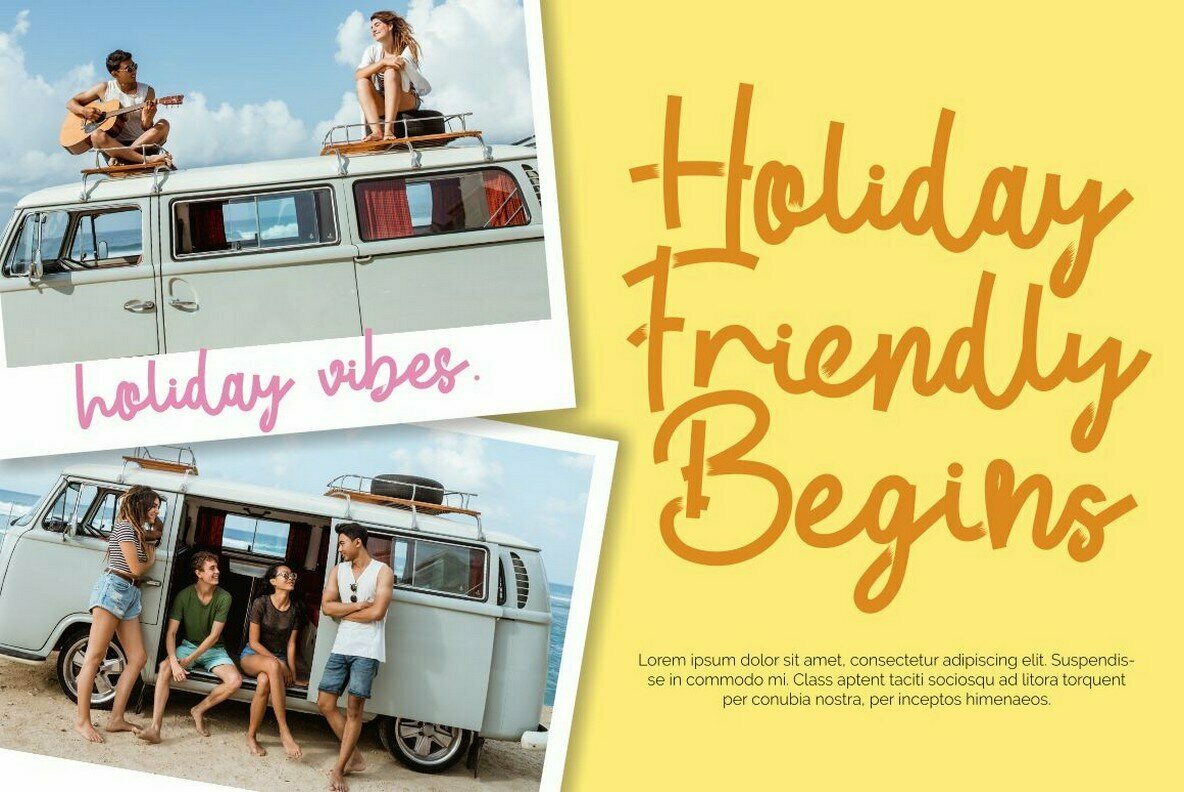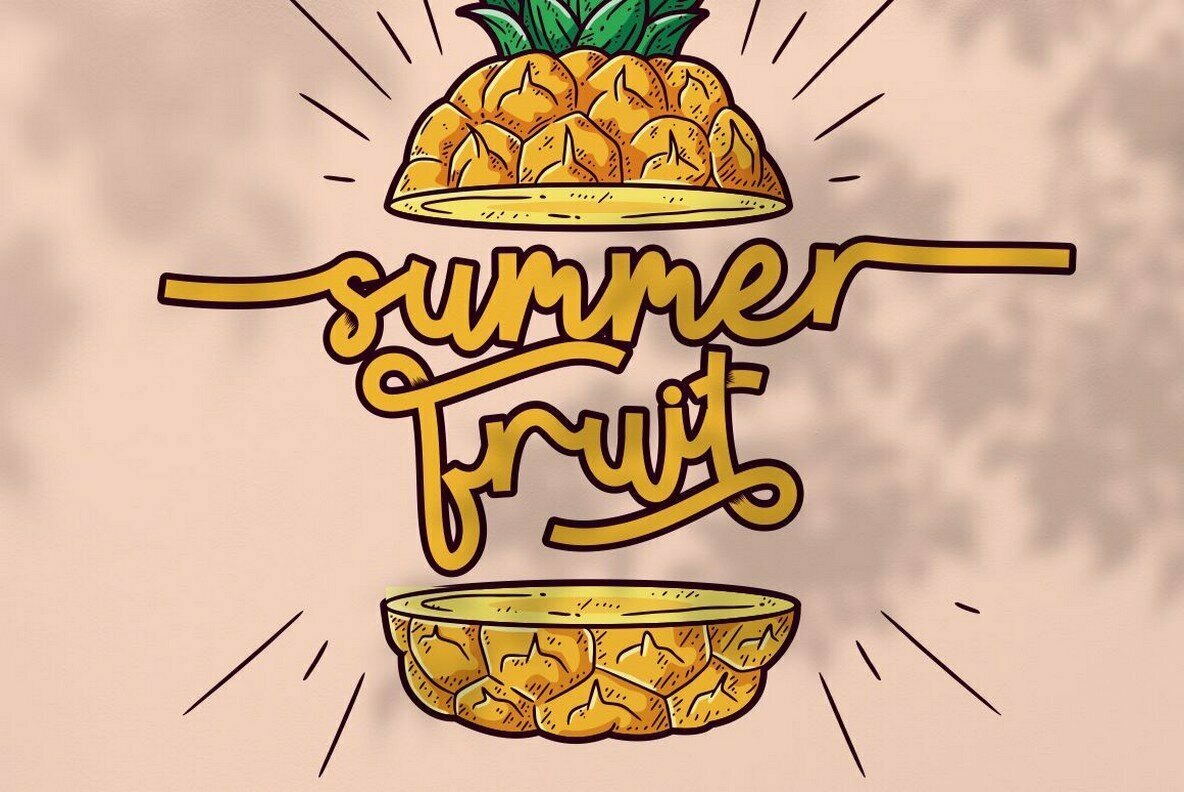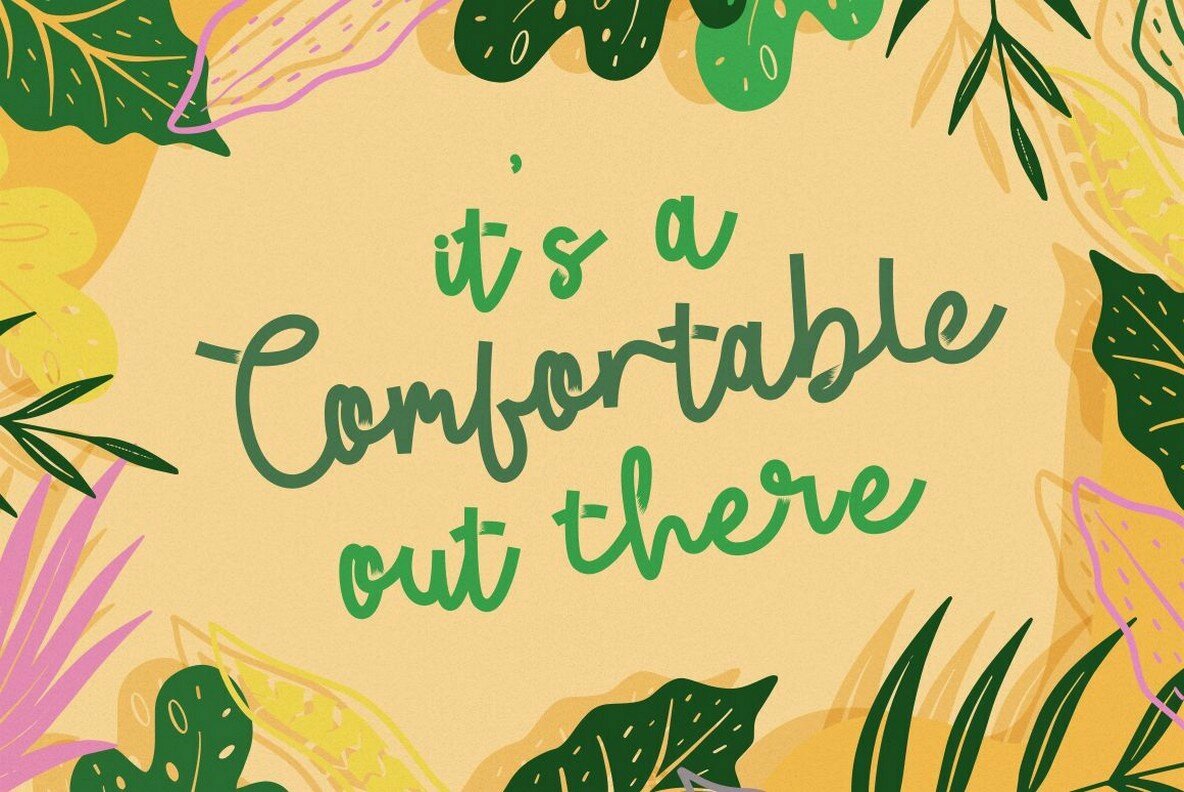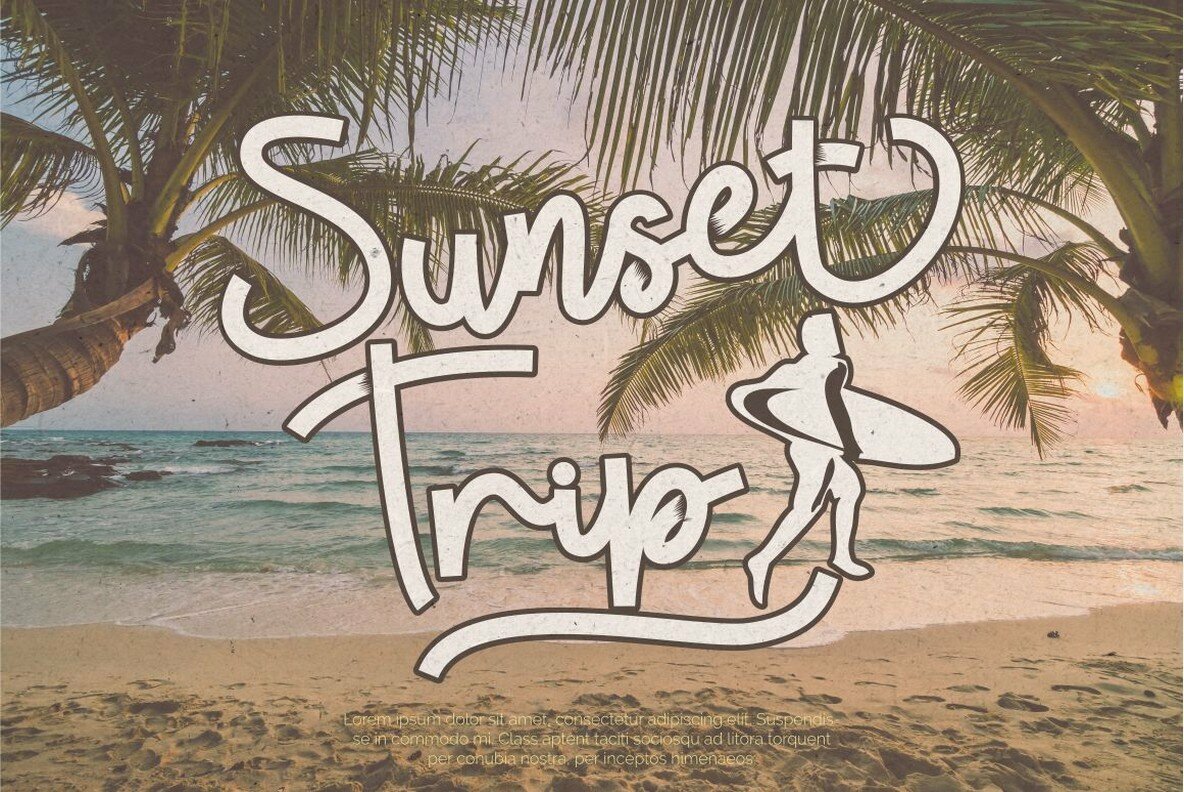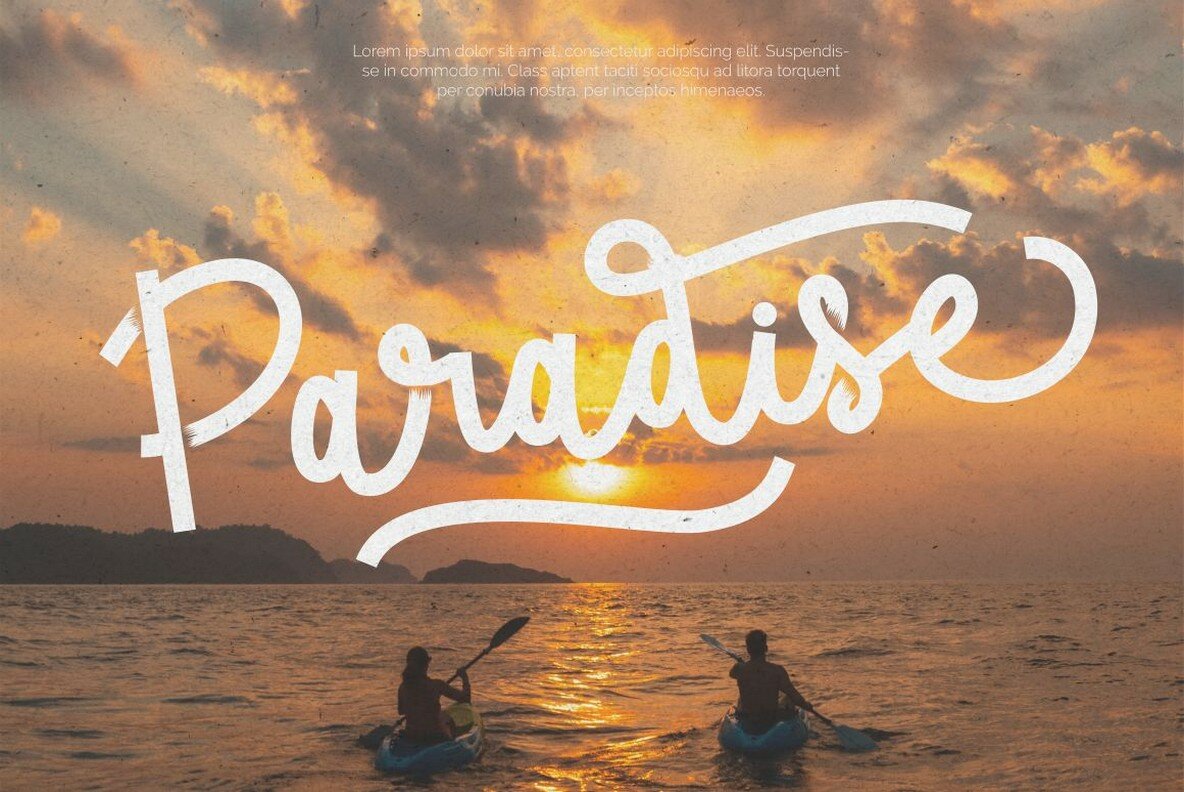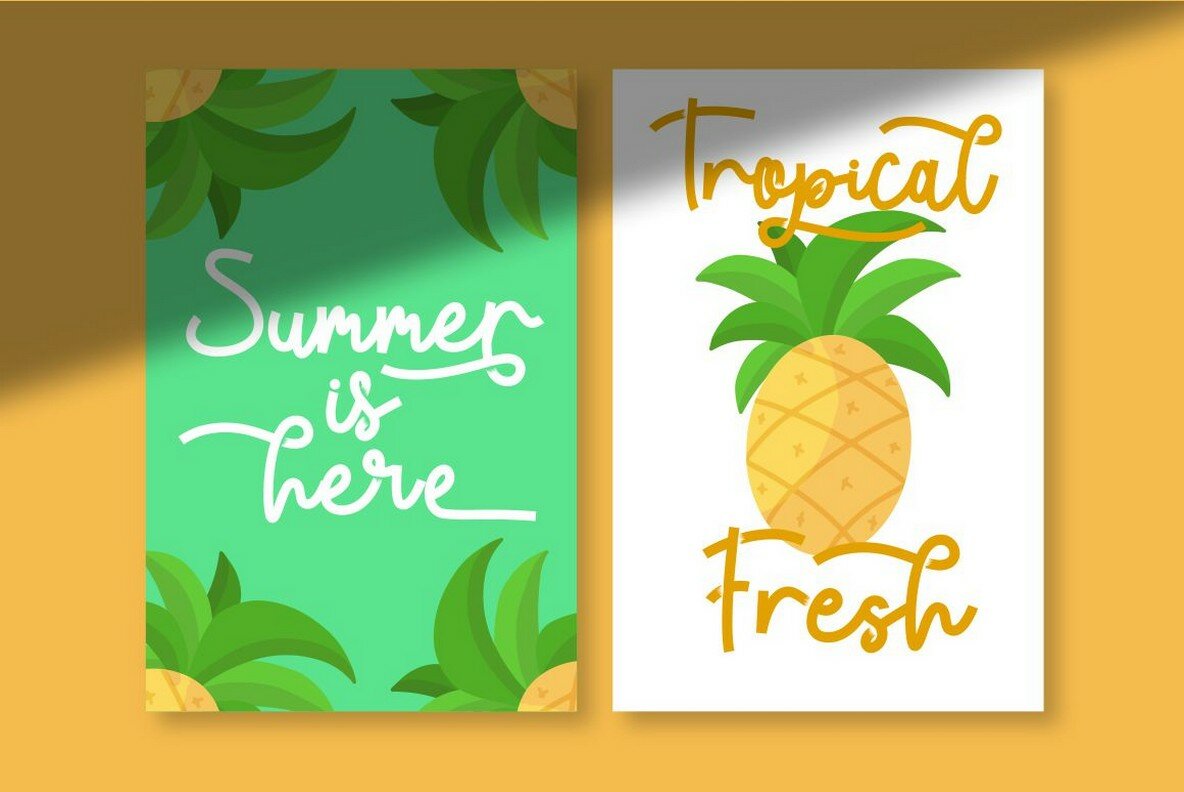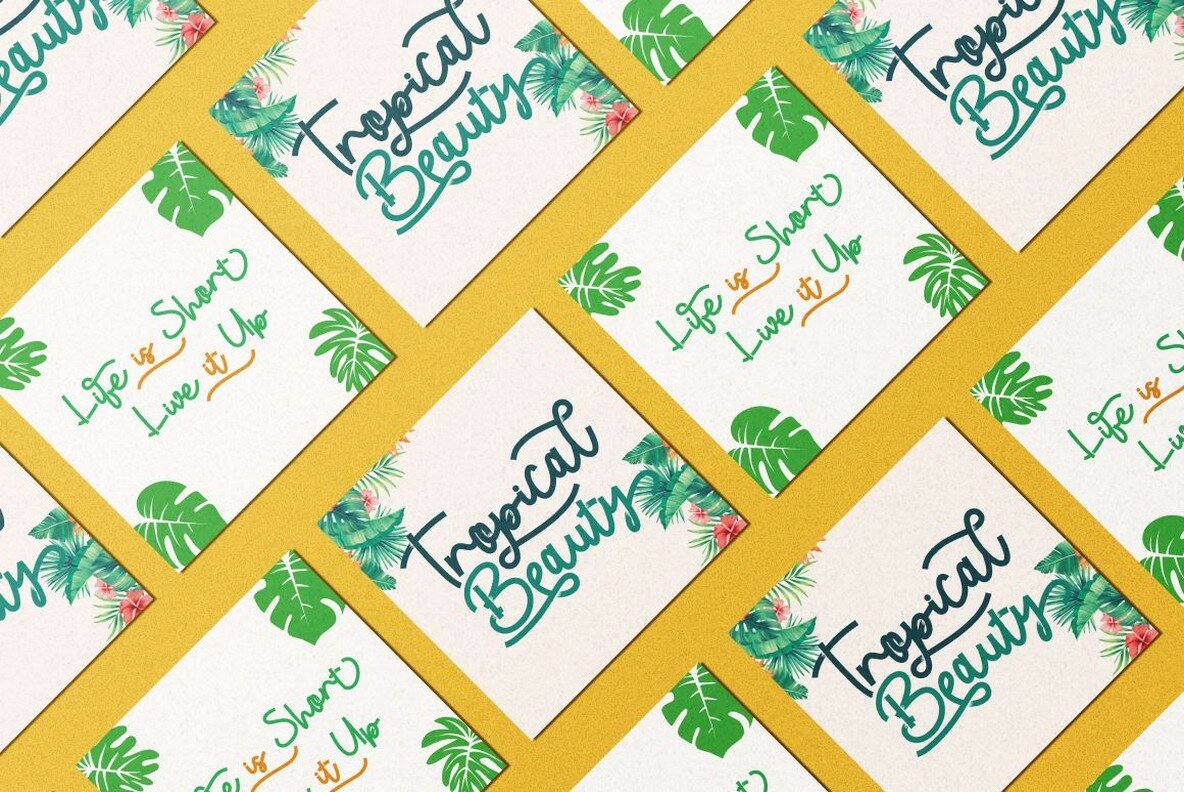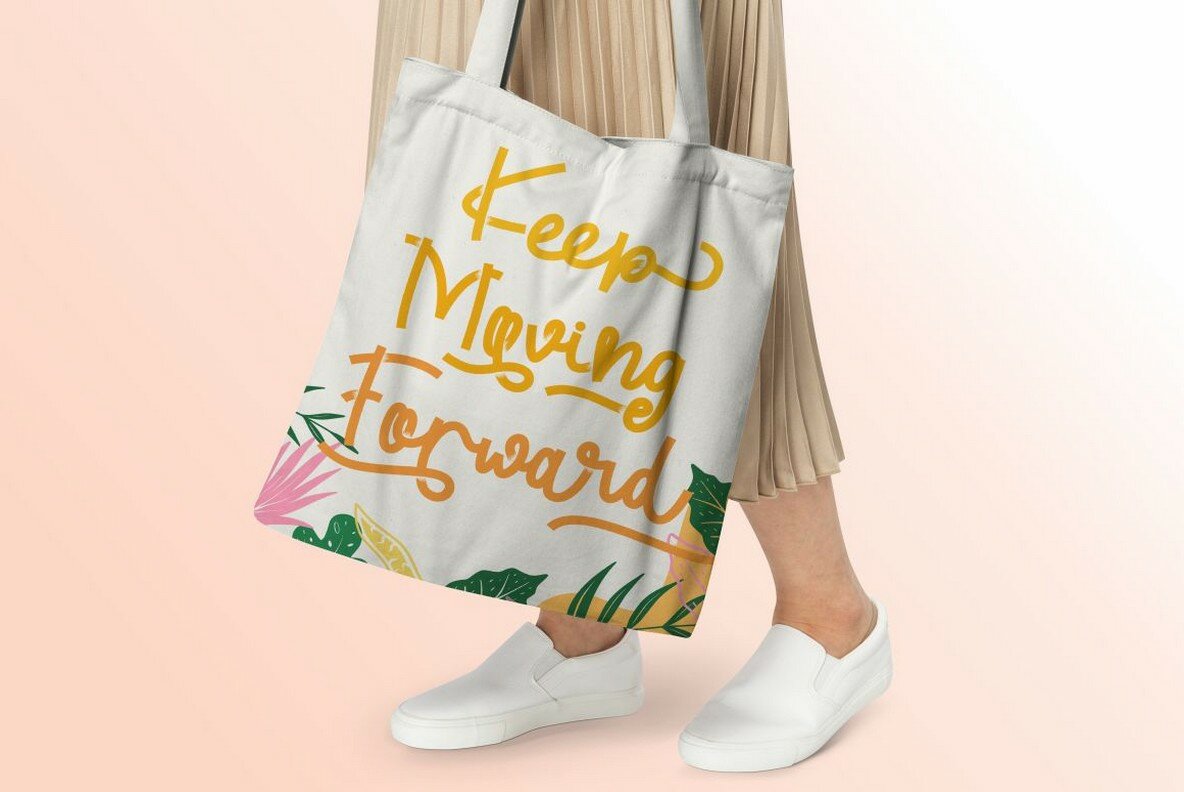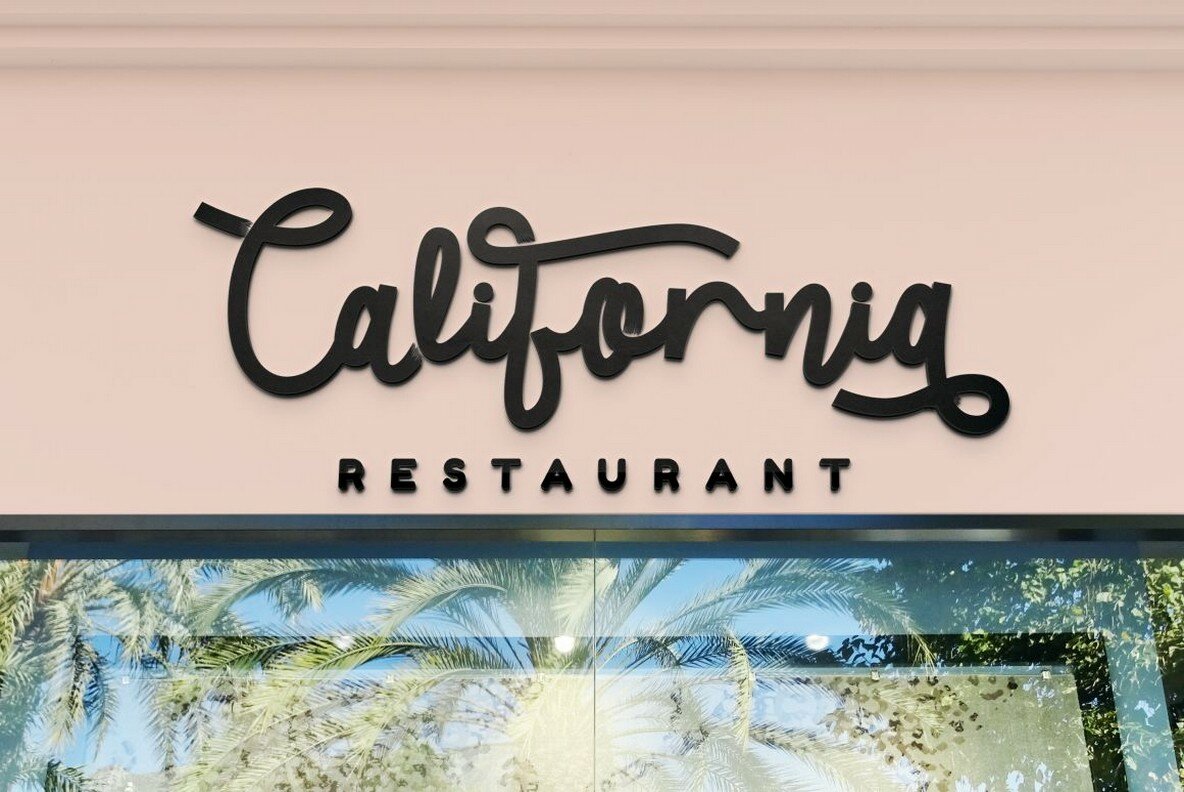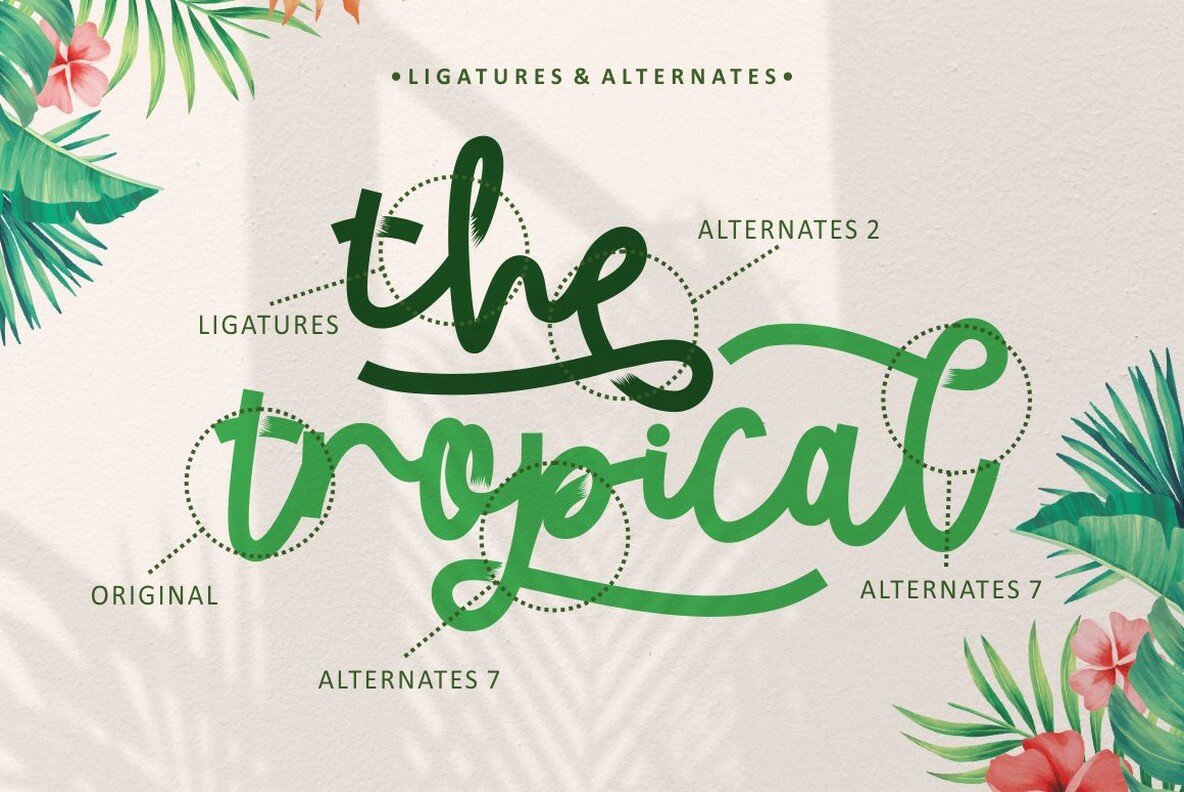
Tropical Beauty Font
Tropical Beauty
Tropical Beauty is a charming, retro-style script font design.
- Opentype (Alternates And Ligatures)
- Number, Punctuation And Symbols
- Multi-language Support.